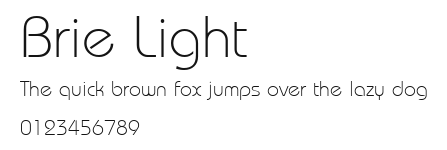
About Brie Light.ttf
Brie Light.ttf is a modern, elegant sans-serif font designed for ultimate readability and visual harmony. Perfect for branding, headlines, web design, and print materials.